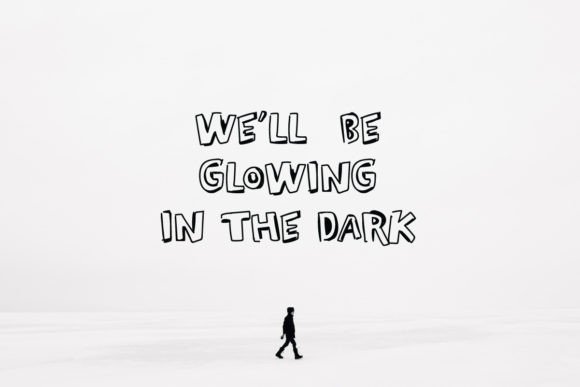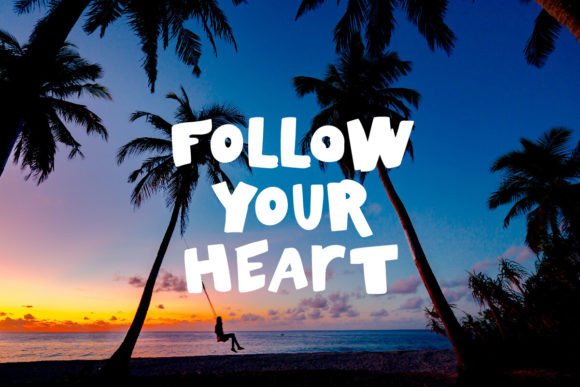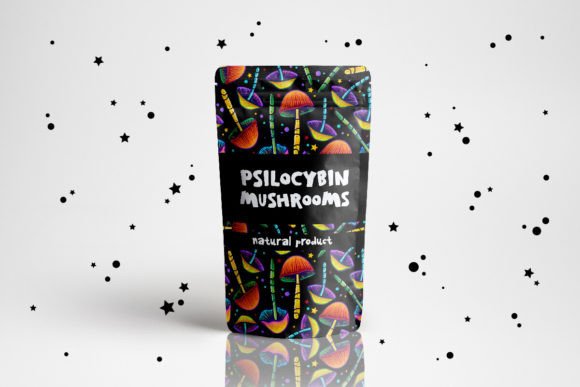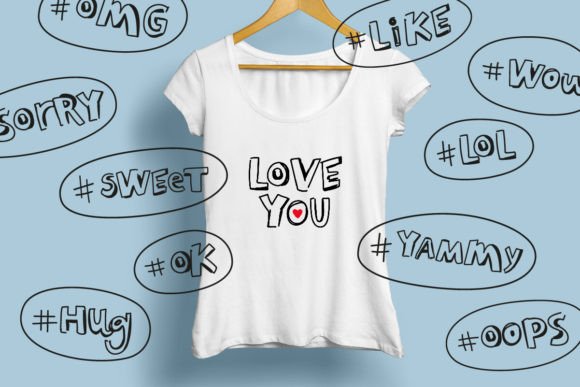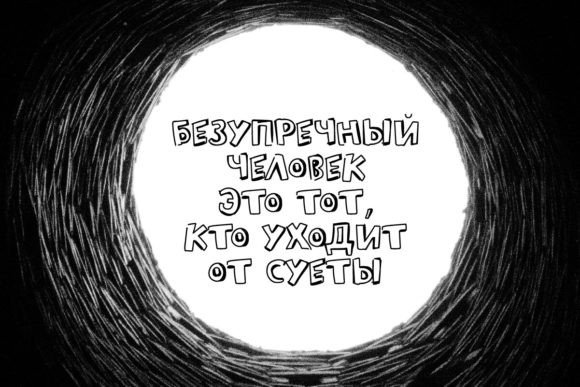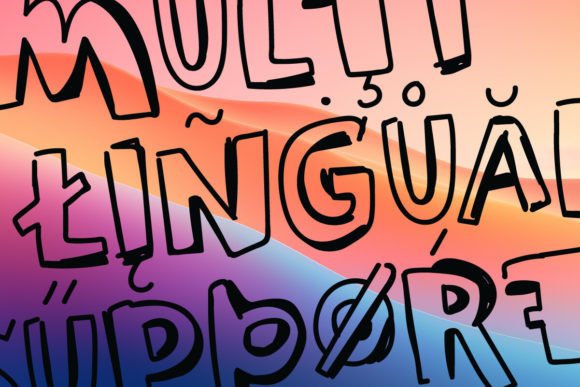
Introducing Empty Inside Font: A Playful and Versatile Typeface for Kids and Designers
Are you a designer or crafter looking for a fun and playful font to add a touch of whimsy to your projects? Look no further than Empty Inside Font, a delightful typeface designed specifically for kids and those young at heart. This charming font is perfect for a wide range of design projects, from logos and posters to product packaging and greeting cards.
What Makes Empty Inside Font So Special?
Empty Inside Font is a comprehensive typeface that includes a wide range of characters, making it incredibly versatile. The font comes with:
- Uppercase and lowercase characters, perfect for creating eye-catching titles and captions
- A set of punctuation marks, ensuring you have all the symbols you need to add a finishing touch to your designs
- Numbers, making it easy to create lists, charts, and other graphical elements
- Cyrillic characters, providing support for multiple languages and broadening the font’s usability
- An alternative set of characters and numbers, allowing you to experiment with different styles and variations
The Perfect Font for Kids and Designers
Empty Inside Font is designed to be fun and playful, making it an ideal choice for projects aimed at kids or those that require a lighthearted touch. The font’s friendly and approachable style is sure to delight children and adults alike, adding a touch of personality to any design.
Whether you’re a professional designer or a crafty DIY enthusiast, Empty Inside Font is an excellent addition to your font library. Its versatility and charm make it perfect for a wide range of projects, including:
- Logos: Create a fun and memorable brand identity with Empty Inside Font
- Posters: Design eye-catching posters that grab attention and leave a lasting impression
- Product packaging: Add a playful touch to your product packaging and make it stand out on store shelves
- T-shirts: Create fun and quirky designs for kids’ t-shirts or other apparel
- Book covers: Design engaging and child-friendly book covers that appeal to young readers
- Greeting cards: Add a personal touch to your greeting cards with Empty Inside Font’s playful style
Why Choose Empty Inside Font?
With so many fonts available, why choose Empty Inside Font? Here are just a few reasons why this typeface stands out:
- Unique style: Empty Inside Font has a distinctive and playful style that’s sure to set your designs apart
- Highly versatile: With a wide range of characters and symbols, this font can be used for a variety of projects and applications
- Kid-friendly: This font is designed with kids in mind, making it perfect for projects aimed at children or those that require a fun and playful touch
Get Creative with Empty Inside Font
| Font Name | Empty Inside Font |
| Author | ChekArt |